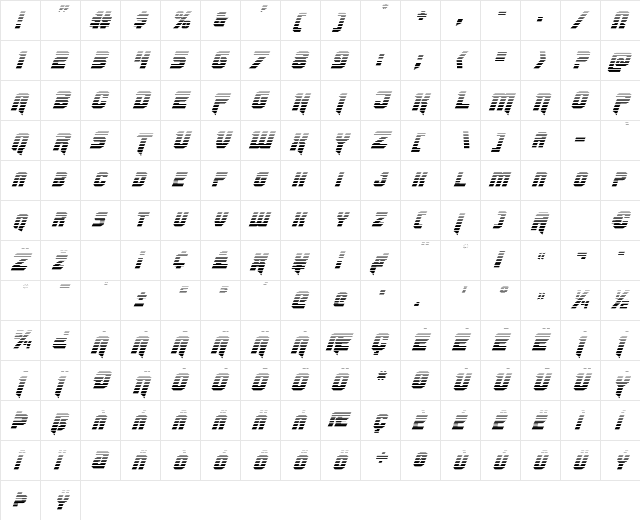
OmegaForce Gradient Italic Italic
Design Context for OmegaForce Gradient Italic Typeface
OmegaForce Gradient Italic brings high-energy athletic personality to the page — its confident, muscular forms are built for impact. Its italic angle brings a sense of urgency and motion to the letterforms.
Built for sports team identities, athletic apparel, event posters, and high-energy promotional material.
Pro Tip: OmegaForce Gradient Italic thrives on contrast — try it large, bold, and tight against a clean background for maximum visual impact.